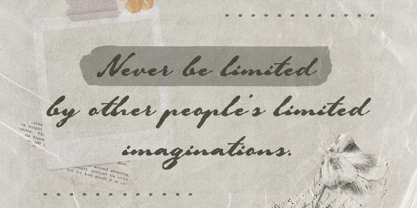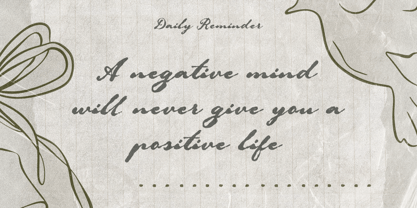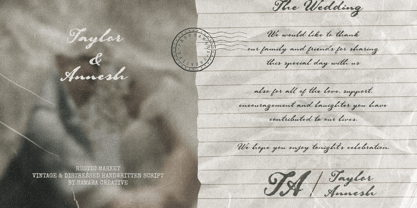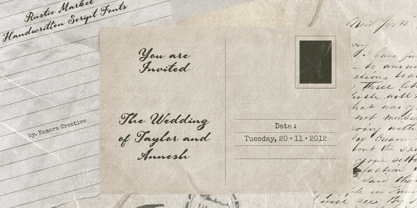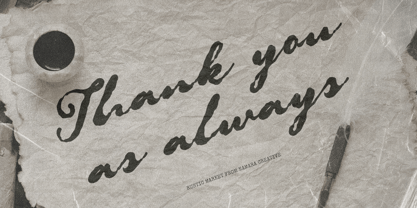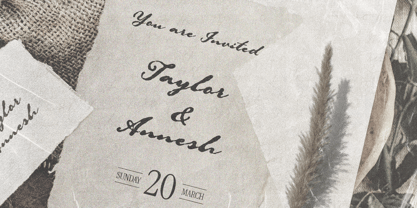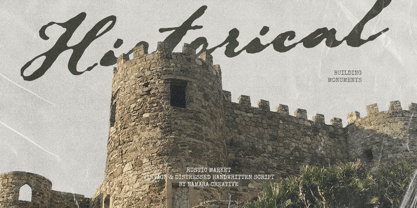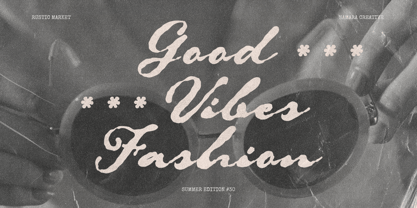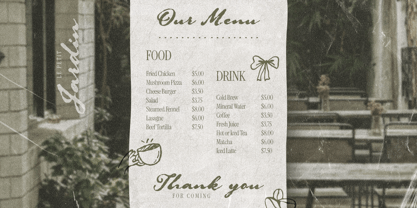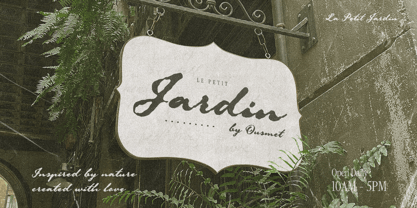
Rustic Market
Die Schriftfamilie Rustic Market wurde von Eep Apringga entworfen und von Namara Creative Studio veröffentlicht. Rustic Market enthält 1 Stile. Mehr über diese Familie
Rustic Market stands as a bold celebration of the "imperfect human touch." Crafted with a meticulous eye for organic detail by the artisans at Namara Creative Studio, this "unique textured raw script" brings the warmth and soul of a countryside market stall directly to your design canvas.
Rustic Market is more than just a font; it is a "storytelling tool" designed for brands that value authenticity, craftsmanship, and a "Significant Impact" through simple, powerful design.
Rustic Market balances a "bold presence" with an "approachable grace."
Key Features :
• Comprehensive Character Set : Includes a full suite of Uppercase and Lowercase characters, along with Numbers and essential Punctuation.
• Rich Features & Multilingual Support : Natural rhythm of true handwriting, with engineered for international reach.
Rustic Market is more than an aesthetic accessory, it is a high-performance commercial asset that sits at the center of current typographic trends. By leveraging the philosophy of significant impact through simplicity.